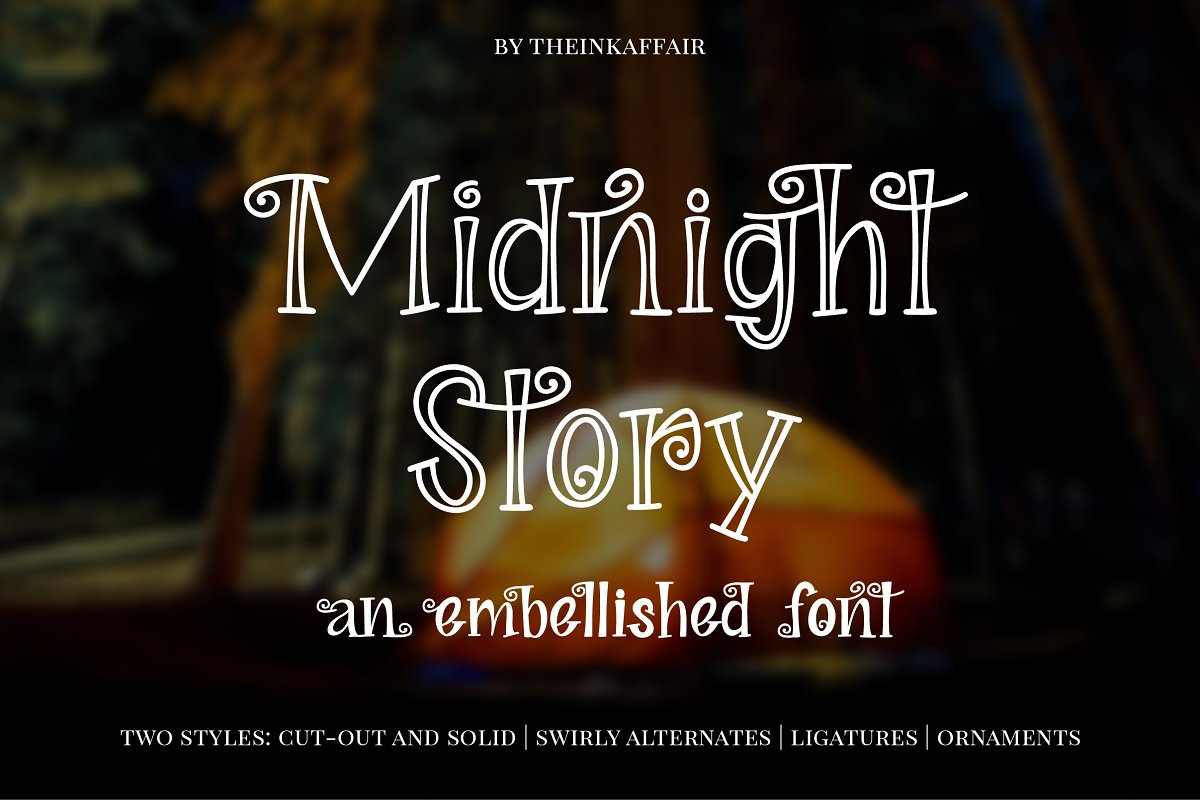
Midnight Story Font
Midnight Story Font is perfect for mystery novel covers, dark entertainment branding, atmospheric movie titles, gothic lifestyle campaigns, nighttime event invitations, supernatural book publications, dramatic theater materials, moody restaurant branding, and storytelling project designs.
What makes Midnight Story Font exciting is its captivating ability to evoke the mysterious allure of midnight tales through dramatically crafted letterforms that seem to whisper secrets from the shadows. The font features intriguing shapes with atmospheric details that capture the enchanting darkness and compelling narratives that emerge when the world sleeps. Its mysterious character and storytelling appeal make it perfect for brands that want to communicate intrigue, dramatic tension, and the irresistible pull of stories told under starlit skies while creating unforgettable experiences that draw audiences into captivating worlds of mystery and imagination.
Midnight Story Font family includes various atmospheric weights such as Light, Regular, Medium, and Bold variations, often featuring dramatic stylistic alternates and storytelling decorative elements. The family may include mysterious symbols, midnight ornaments, and narrative-inspired ligatures that enhance the font's atmospheric aesthetic, providing designers with comprehensive options for creating compelling typographic compositions that capture the essence of midnight storytelling and dramatic narrative.
This atmospherically compelling typeface has gained recognition among entertainment brands and storytelling-focused businesses seeking authentic dramatic typography solutions that convey mysterious appeal. Midnight Story Font Free Download provides an excellent opportunity to unfold this mysterious font before investment. The font's character set includes dramatic symbols and storytelling-inspired glyphs that work perfectly for entertainment and publishing industry applications. Whether you're designing for mystery publishers, atmospheric entertainment venues, or dramatic arts organizations, Midnight Story Font delivers the midnight allure your project requires. Its versatile nature makes it suitable for various storytelling applications including mystery dinner theaters, gothic fashion brands, atmospheric gaming companies, and narrative-focused lifestyle brands, ensuring your typography choices communicate intrigue and dramatic appeal while creating memorable brand experiences that celebrate the power of captivating stories and the irresistible mystery of midnight tales through its distinctively atmospheric and authentically dramatic visual character.